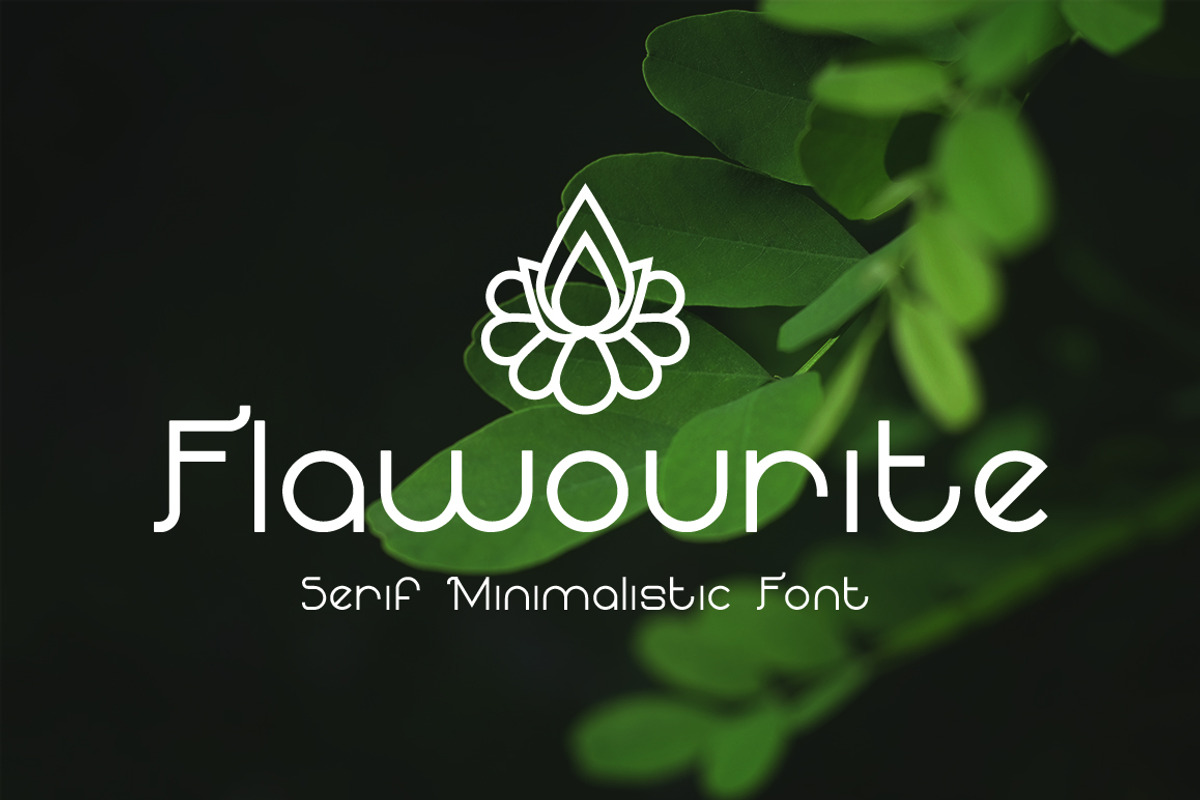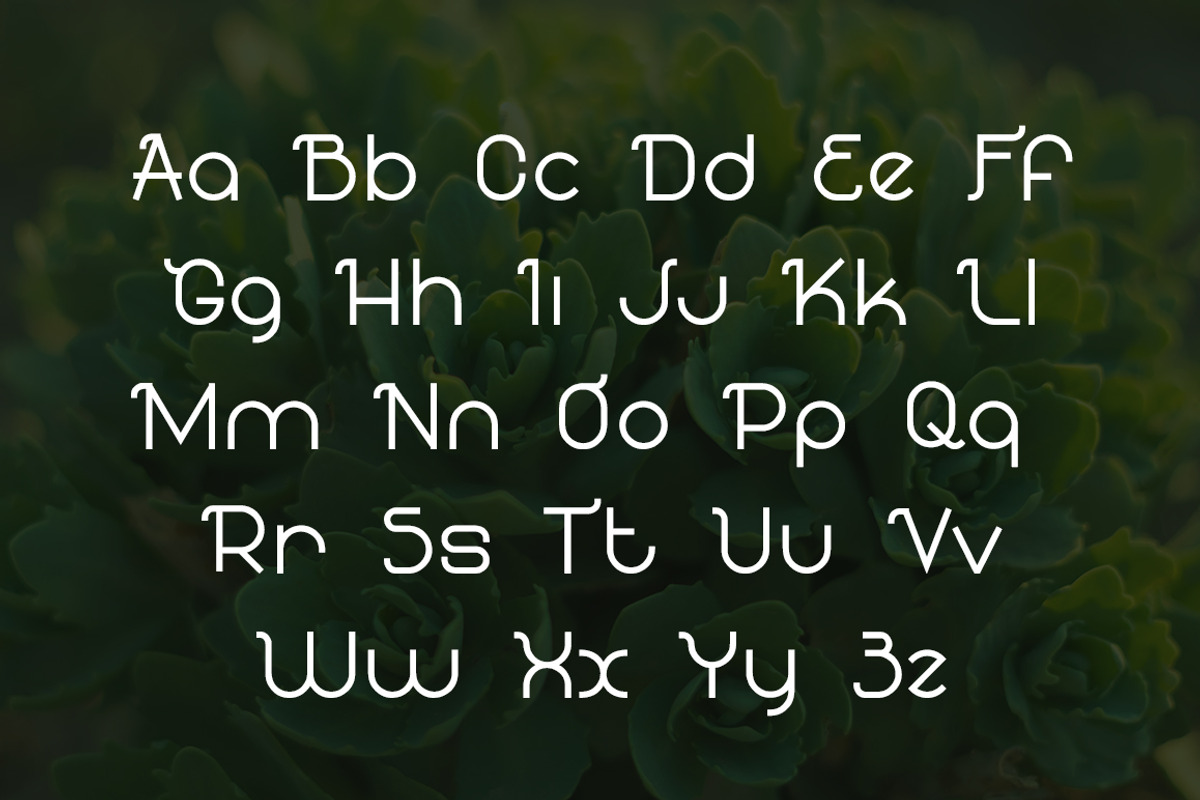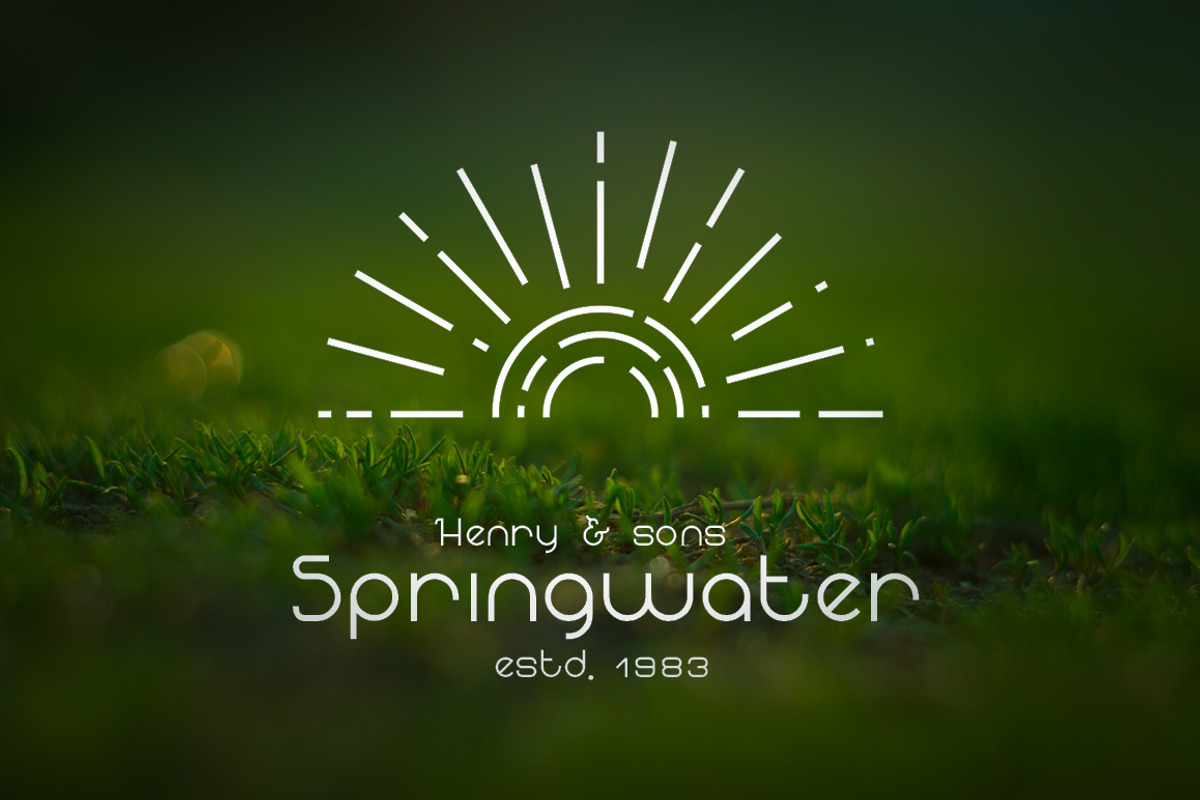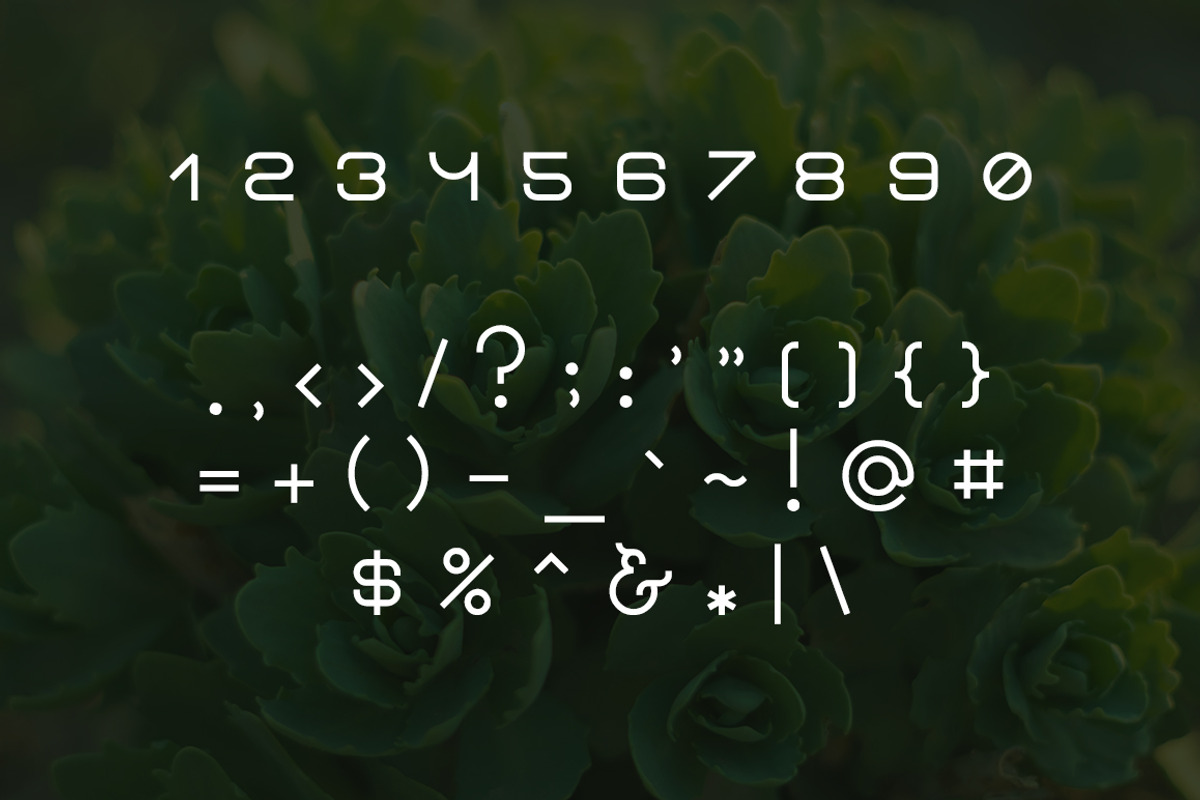
Flawourite serif typeface
Flawourite serif typeface by Magda is a font selected for branding, posters, packaging, typography.
Why Flawourite serif typeface is worth a look
Flawourite serif typeface by Magda fits naturally into Branding, posters, packaging, typography.